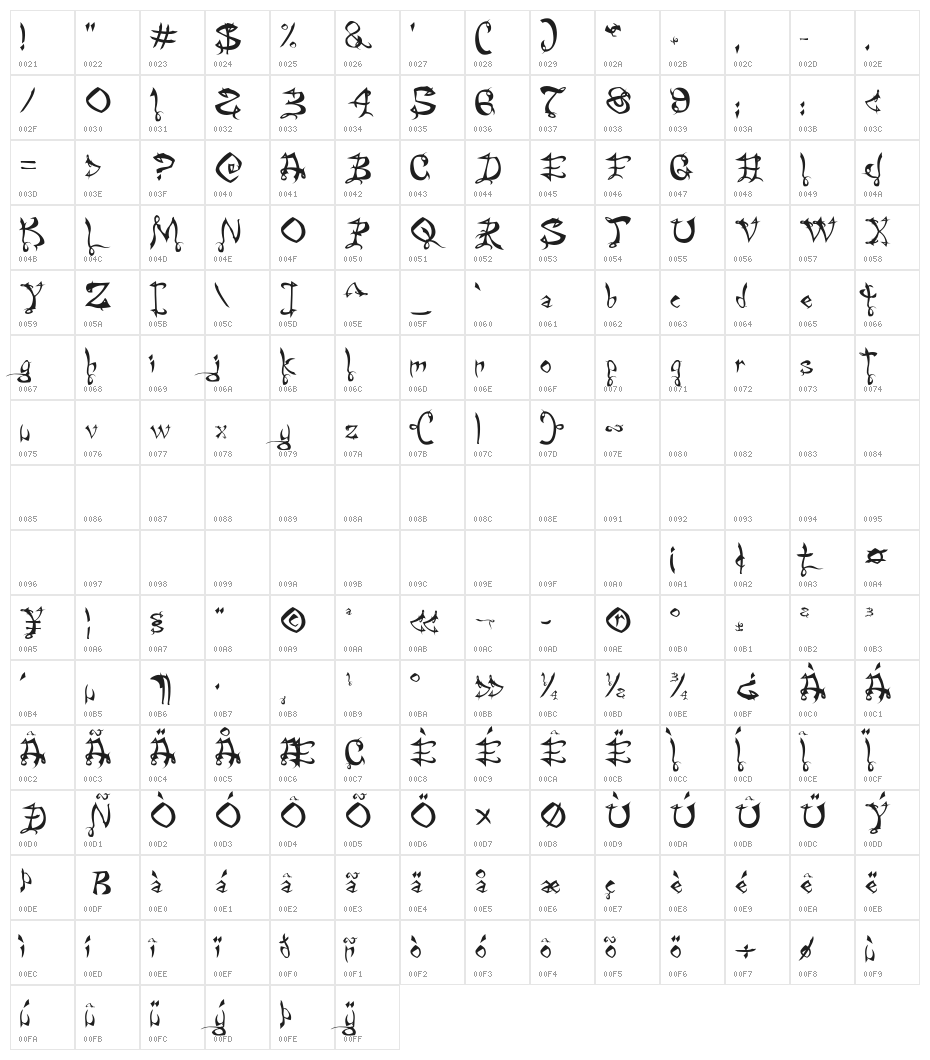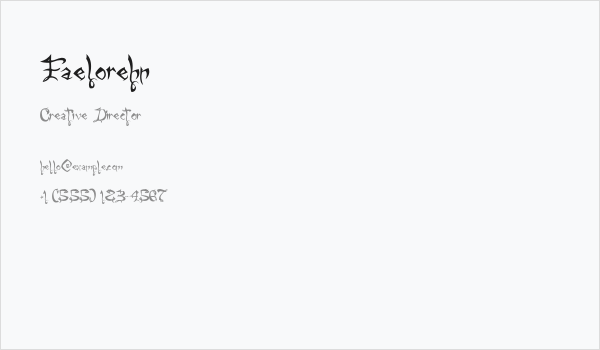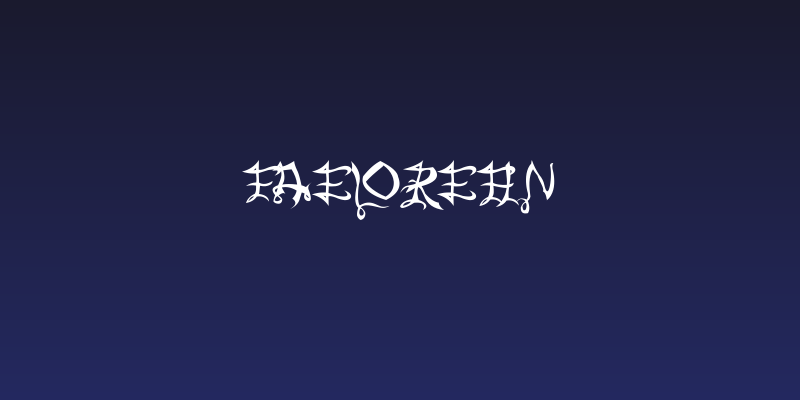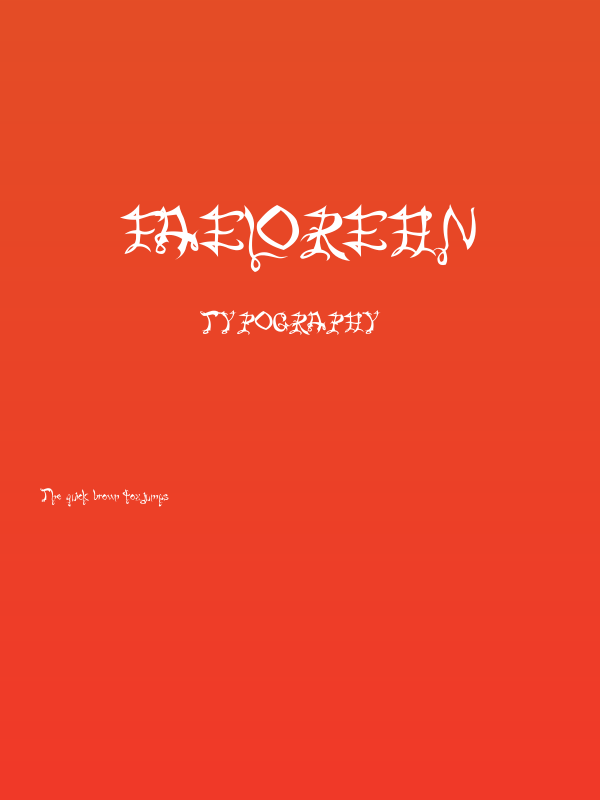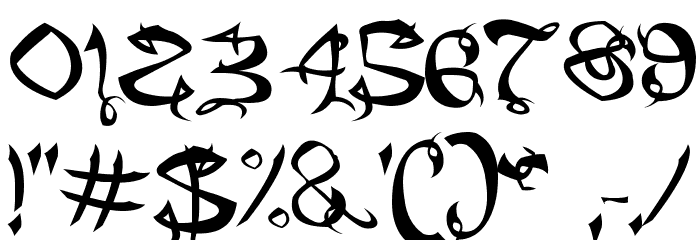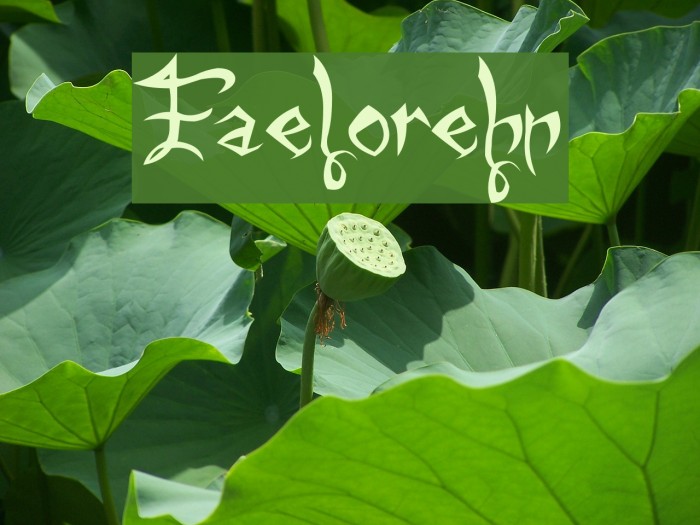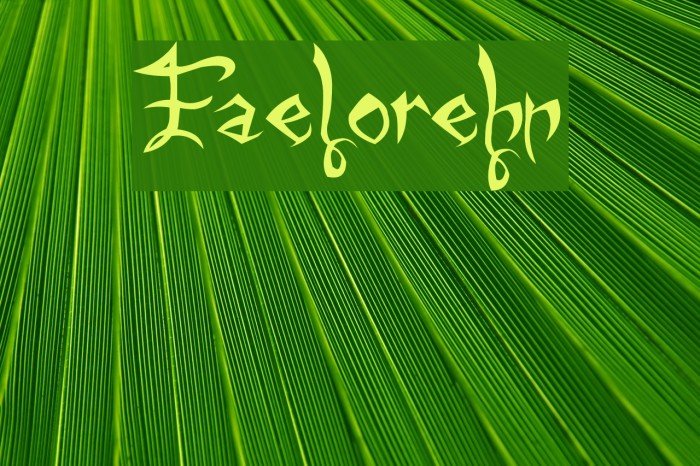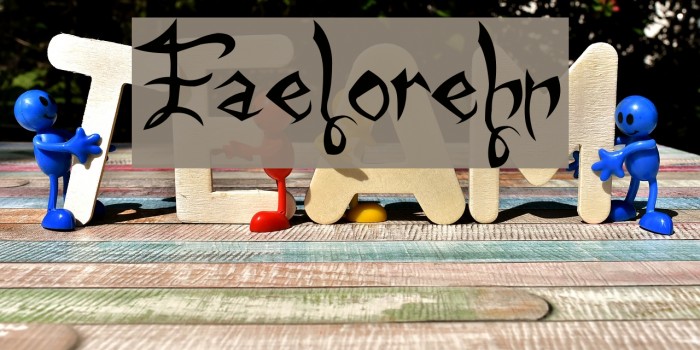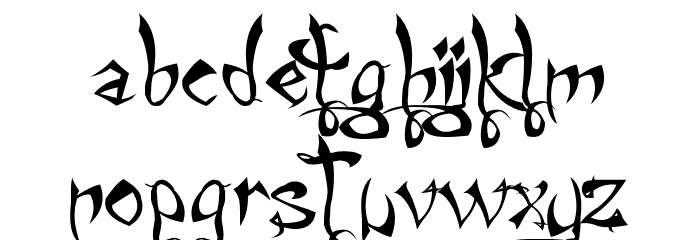
Faelorehn Font
Faelorehn Description
This font features an intricate and ornate design, characterized by elaborate swirls and decorative elements that extend from the main strokes of each character. The uppercase letters are particularly embellished, with sharp, pointed serifs and flourishes that give a sense of movement and elegance. The lowercase letters maintain a similar style, though they are slightly more restrained, allowing for better readability. The numbers and special characters continue the theme with consistent decorative motifs, making the font suitable for artistic and fantasy-themed projects. The overall appearance is both dramatic and whimsical, evoking a sense of mystery and enchantment.
| Proposed Projects | Ideal for fantasy book covers, themed event invitations, and artistic posters. |